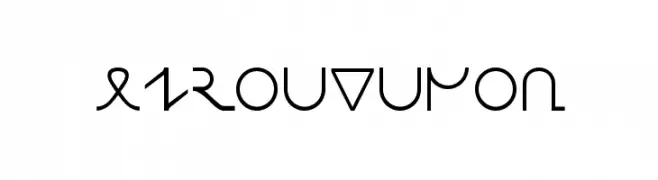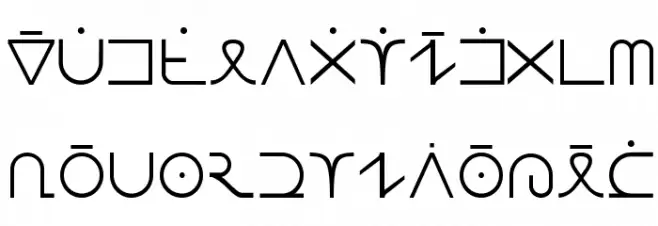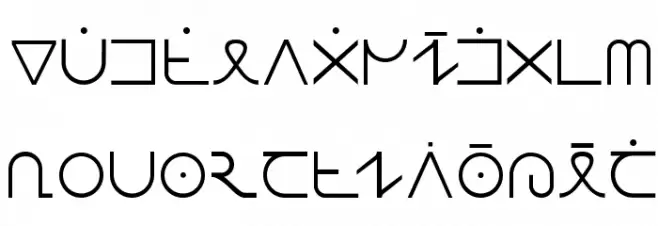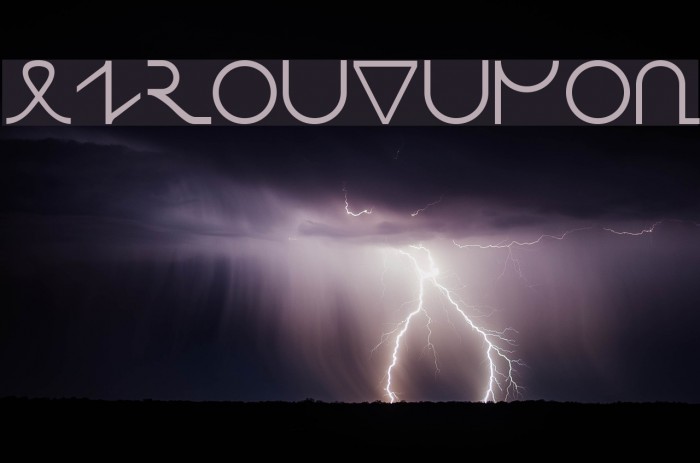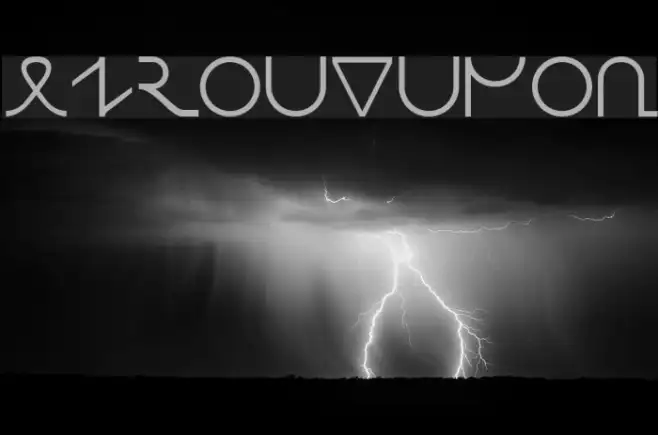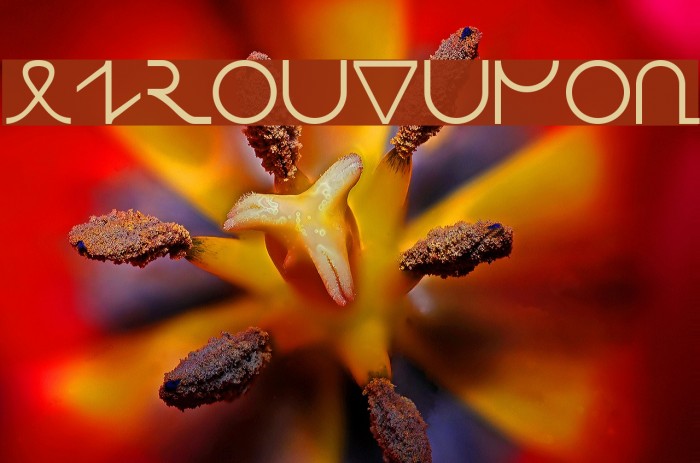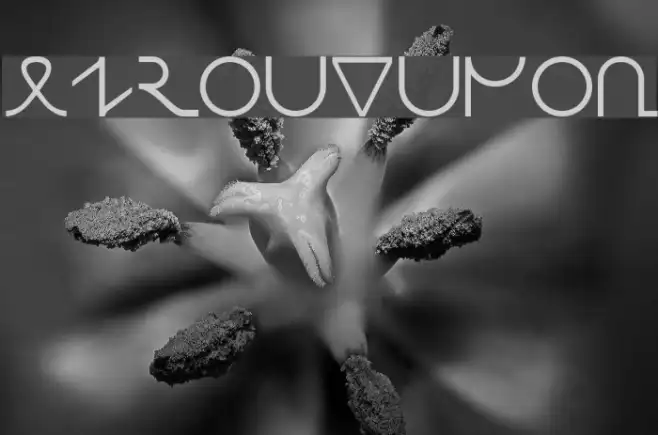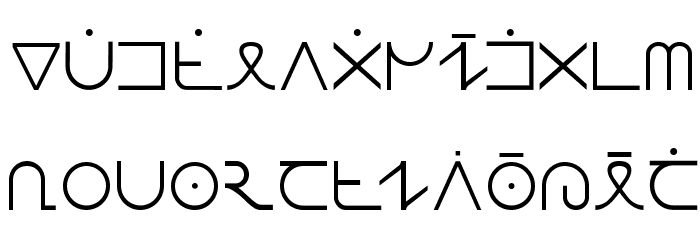
Europaphon Font
Europaphon is an alternative alphabet for English invented by Joel Tashinian and intended to be more efficient than the current alphabet. It is a phonetic alphabet designed for American English.